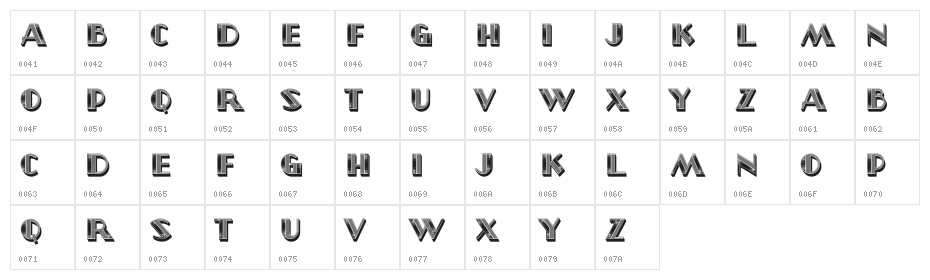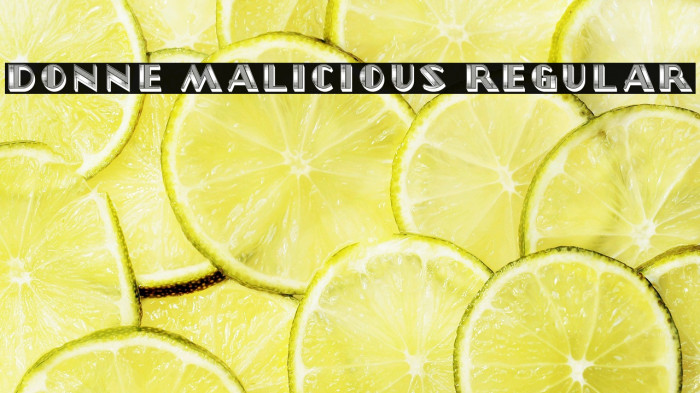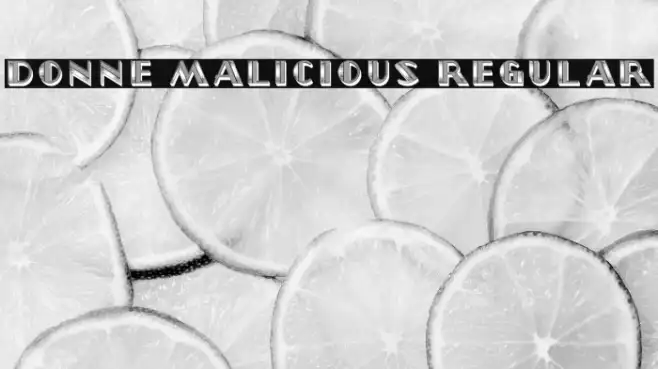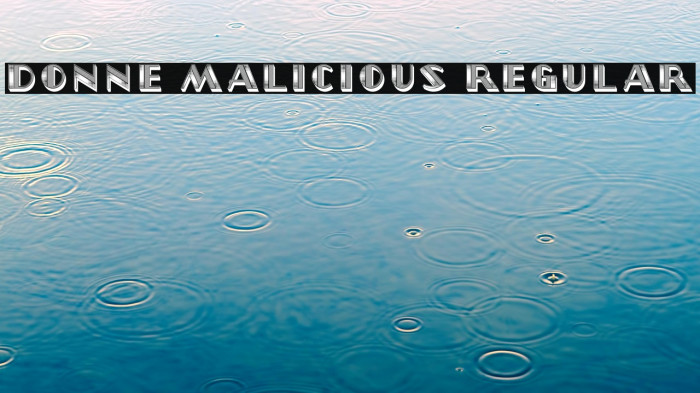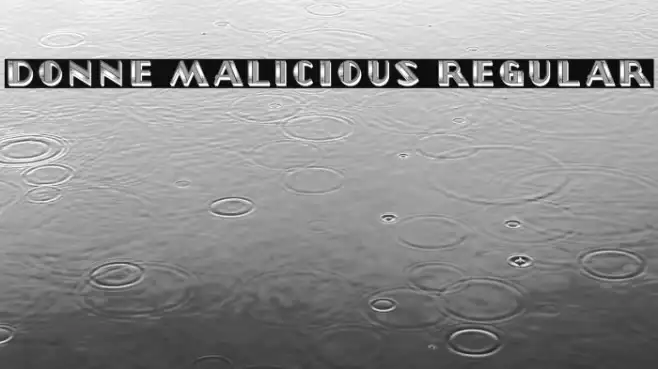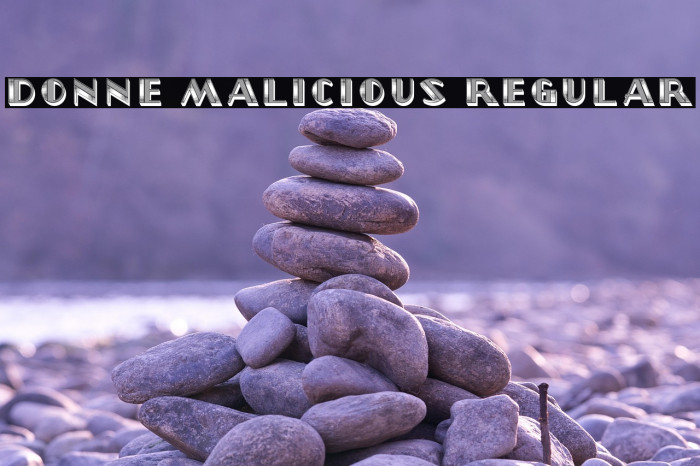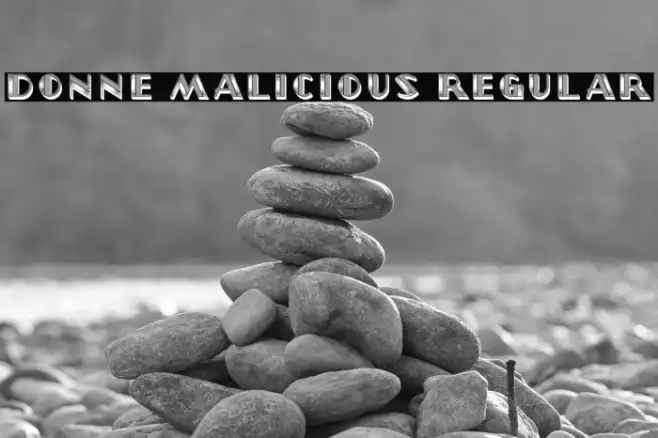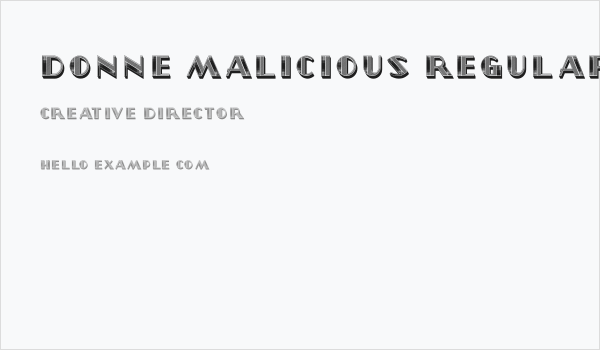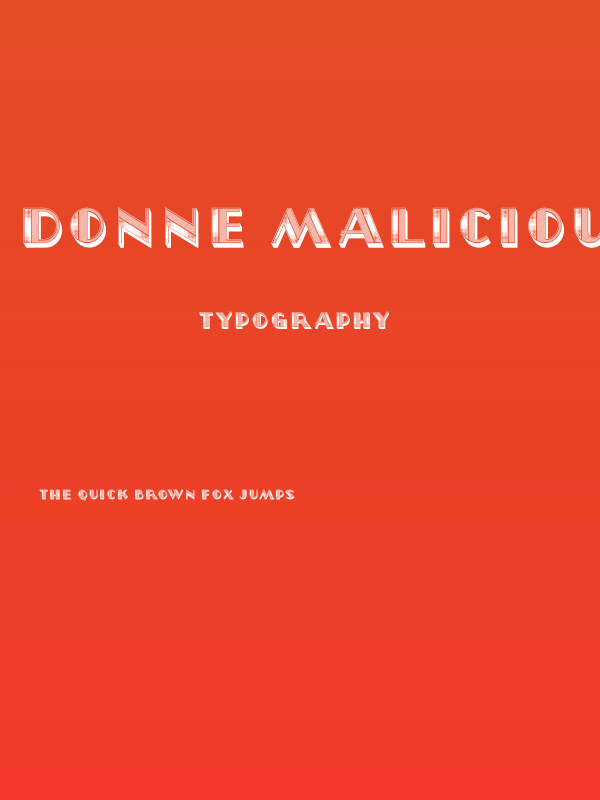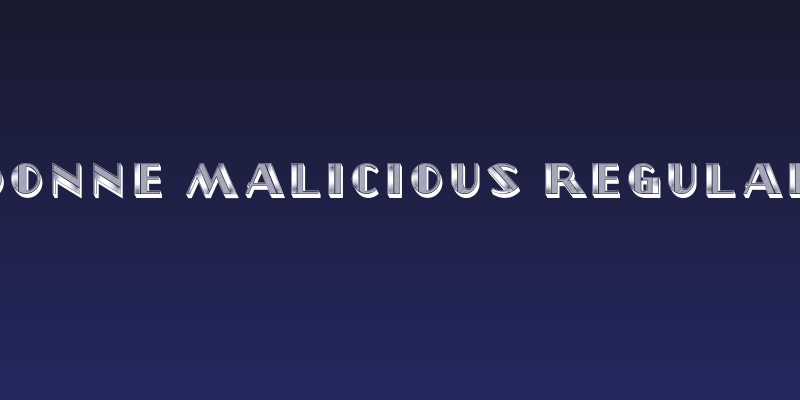
Donne Malicious Regular Font
Donne Malicious Regular Description
This font exhibits a bold and striking appearance with a three-dimensional effect, achieved through the use of shadowing and layered lines. The characters are uppercase, featuring a geometric and structured design that combines both modern and vintage elements. The intricate detailing within each letter adds depth and complexity, making it visually captivating. The font's style is reminiscent of classic signage or poster typography, with a strong emphasis on boldness and clarity. Its unique aesthetic makes it suitable for projects that require a standout, decorative typeface.
| Overall Style | Vintage, Decorative |
| Proposed Projects | Ideal for posters, signage, branding, and any project needing a decorative and impactful typeface. |